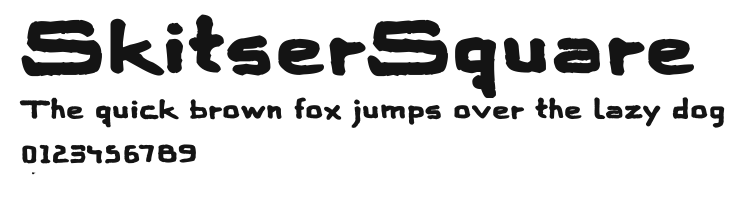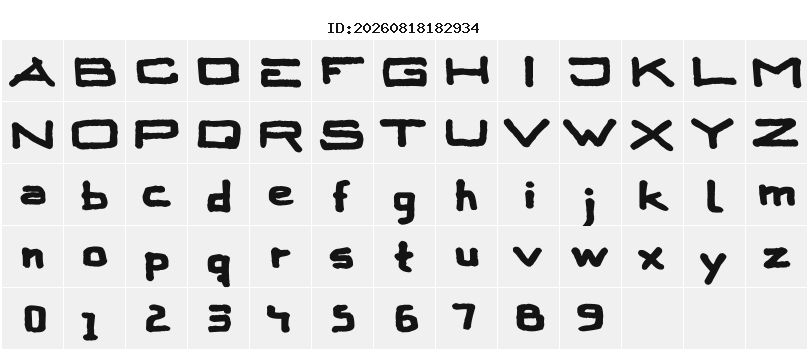
SkitserSquare Preview
• Font Name: SkitserSquare
• Full Font Name: SkitserSquare
• PostScript Name: SkitserSquare
• Description: This font was created using Scanahand from High-Logic.com
About SkitserSquare.ttf
SkitserSquare.ttf is a modern, elegant sans-serif font designed for ultimate readability and visual harmony. Perfect for branding, headlines, web design, and print materials.